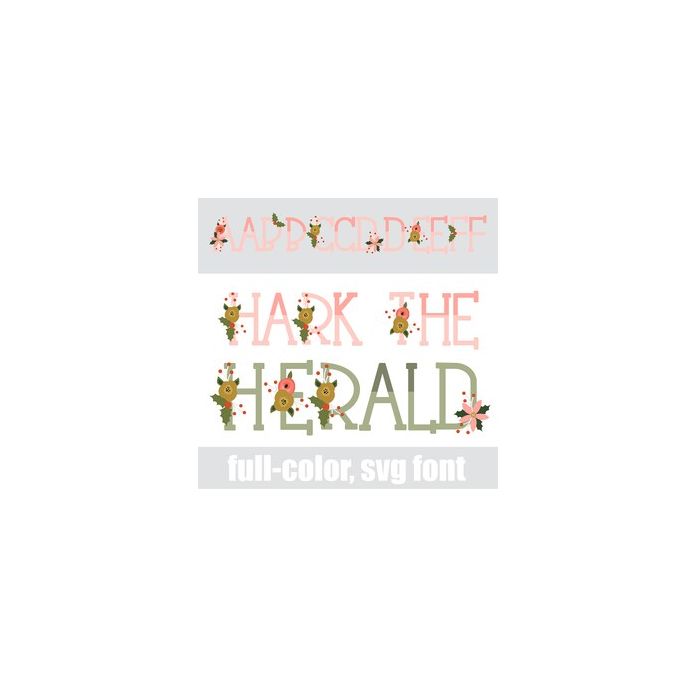
This full-color font features a two-toned serif font with Christmas florals. . There is an alt case w/ additional colors you can access through your system or Silhouette's glyph map.